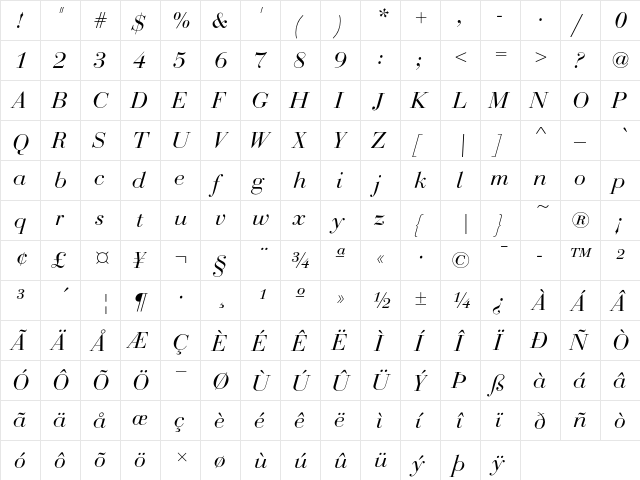
Bauer Bodoni D Regular Italic
Design Context for Bauer Bodoni D Typeface
Bauer Bodoni D is a composed and adaptable typeface that performs quietly and consistently across a wide range of design contexts. The slanted form adds forward momentum and visual energy.
Pro Tip: Try Bauer Bodoni D for annotation and caption copy alongside an upright companion — the contrast in angle creates a dynamic but ordered typographic system.